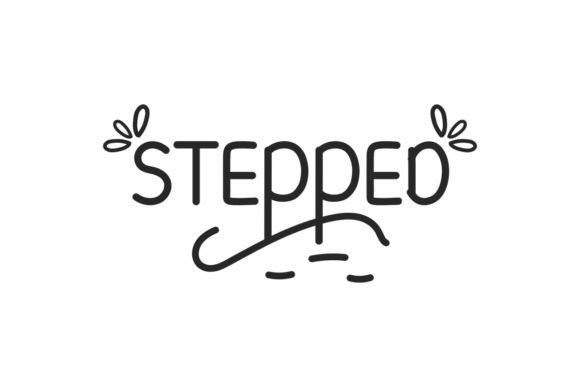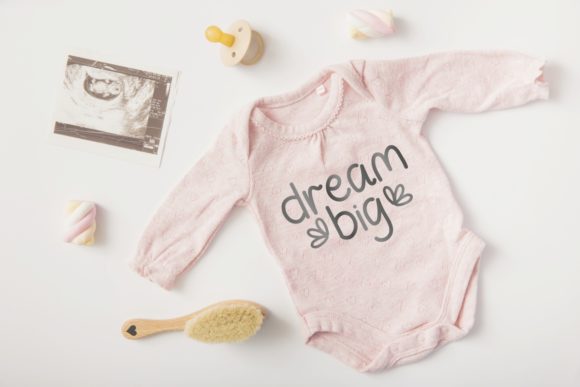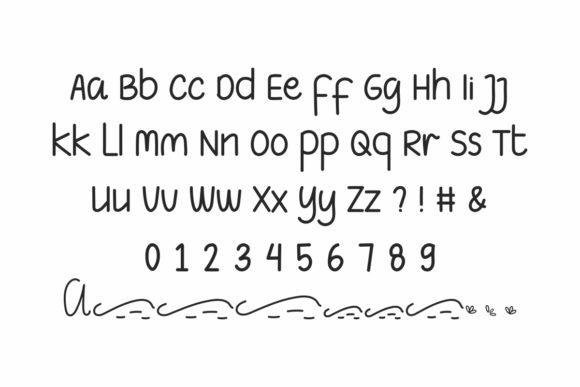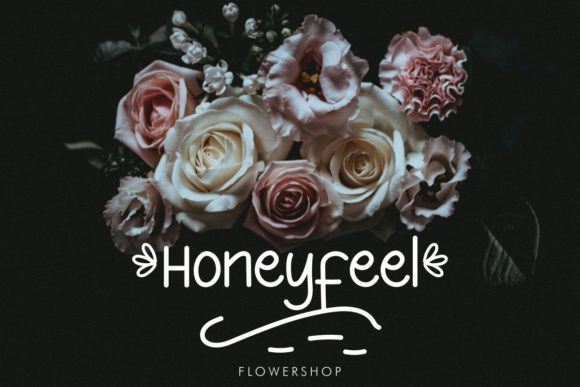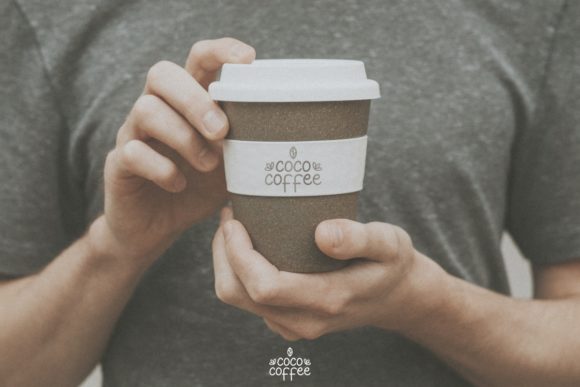
Stepped Font
About Stepped Font
Stepped is a cute and casual handwritten font. Use it to make your ideas even more realistic and create spectacular designs!